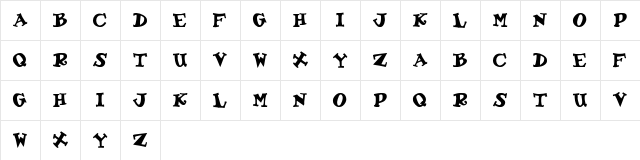
Gadzoox Bold
Design Context for Gadzoox Typeface
Gadzoox is a composed and adaptable typeface that performs quietly and consistently across a wide range of design contexts. The heavy weight commands attention and anchors typographic hierarchies.